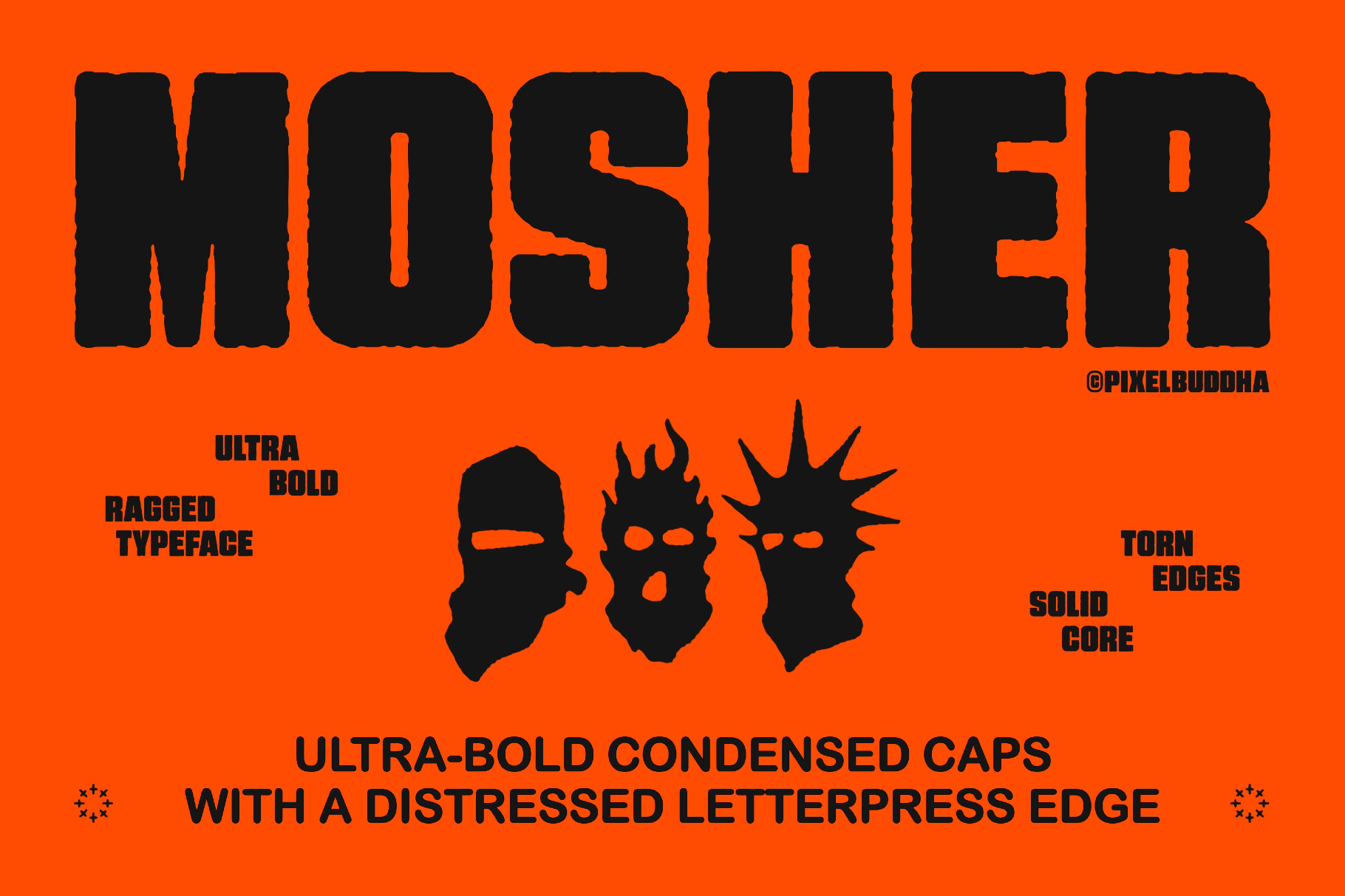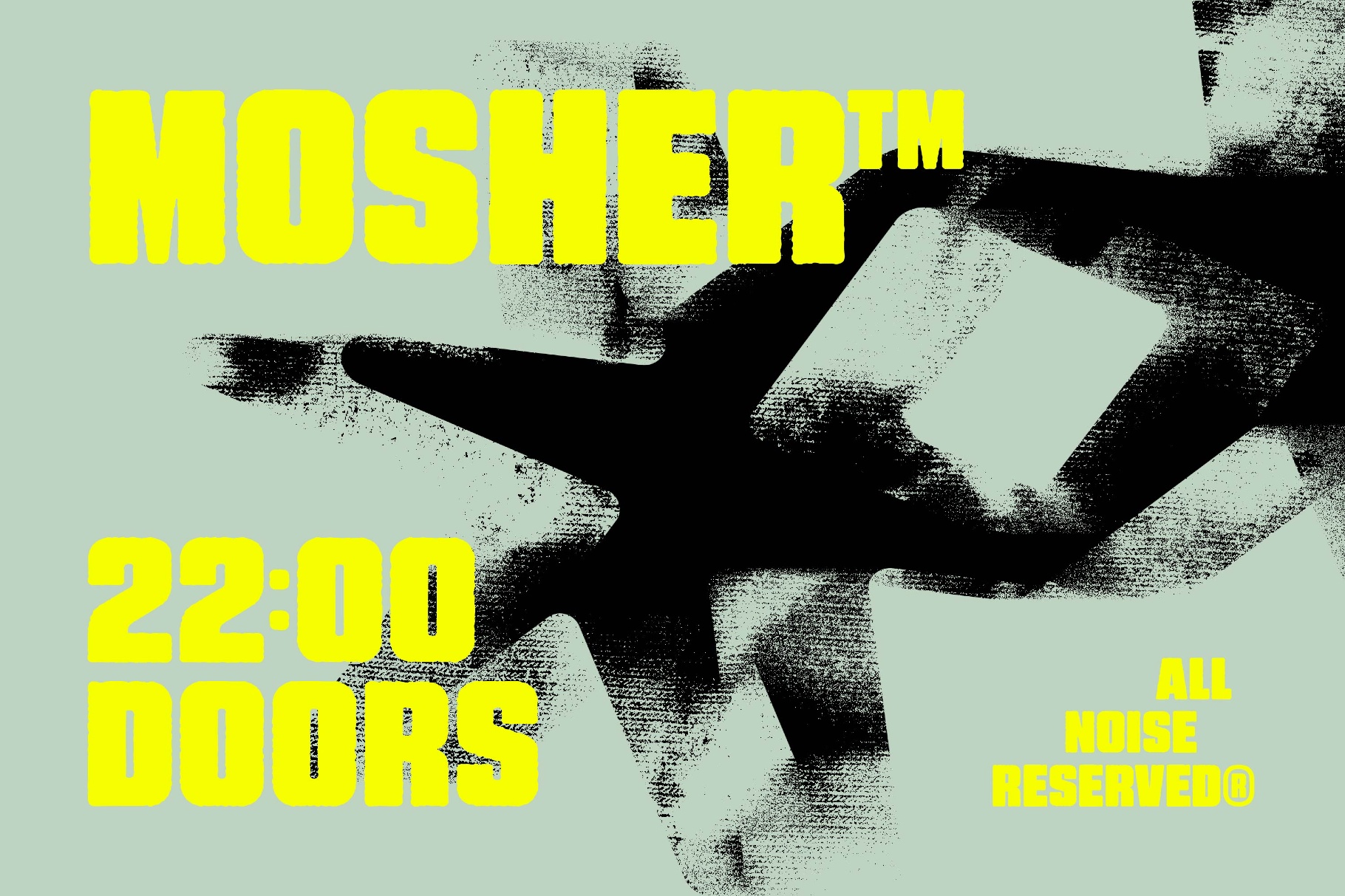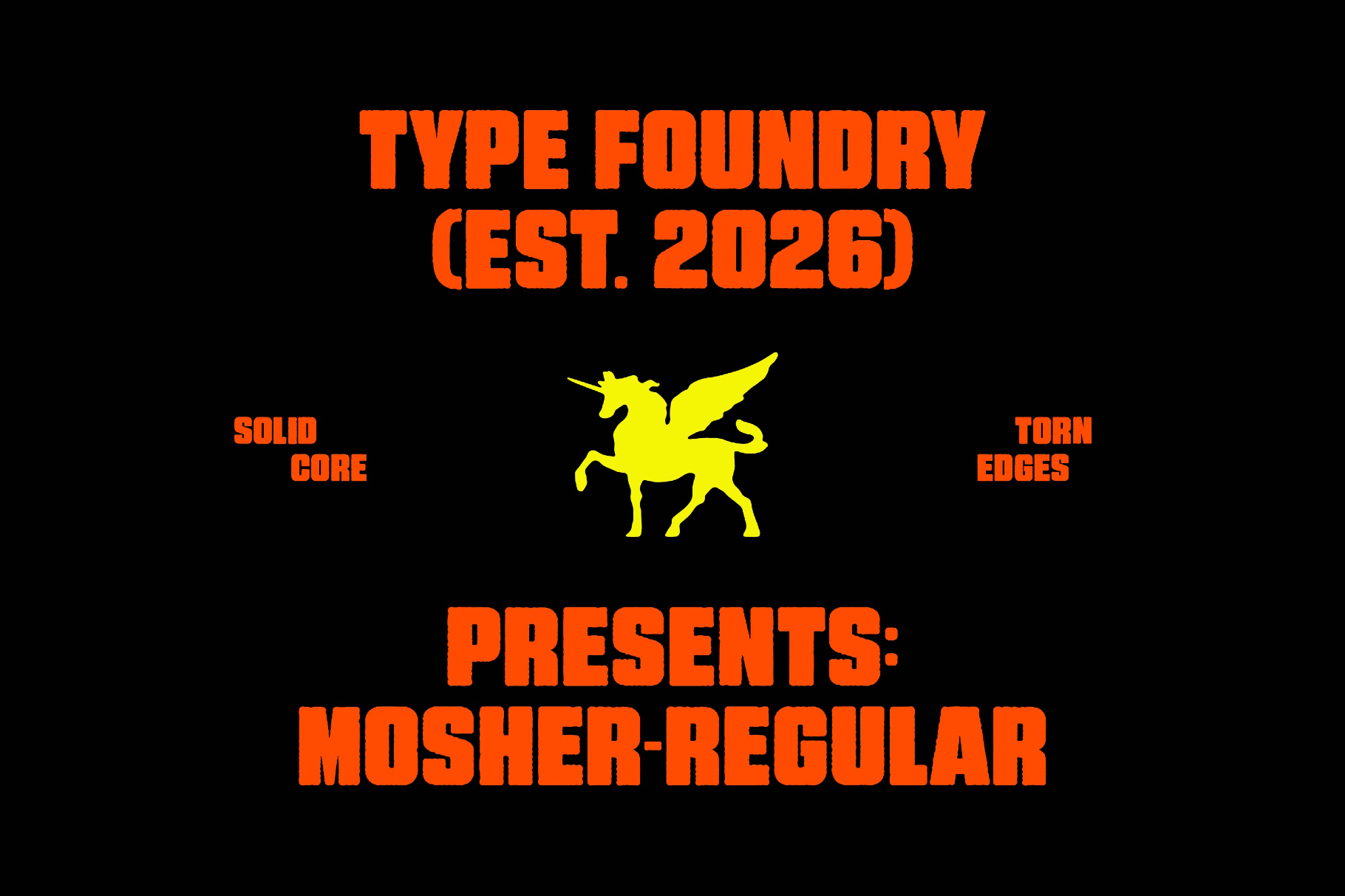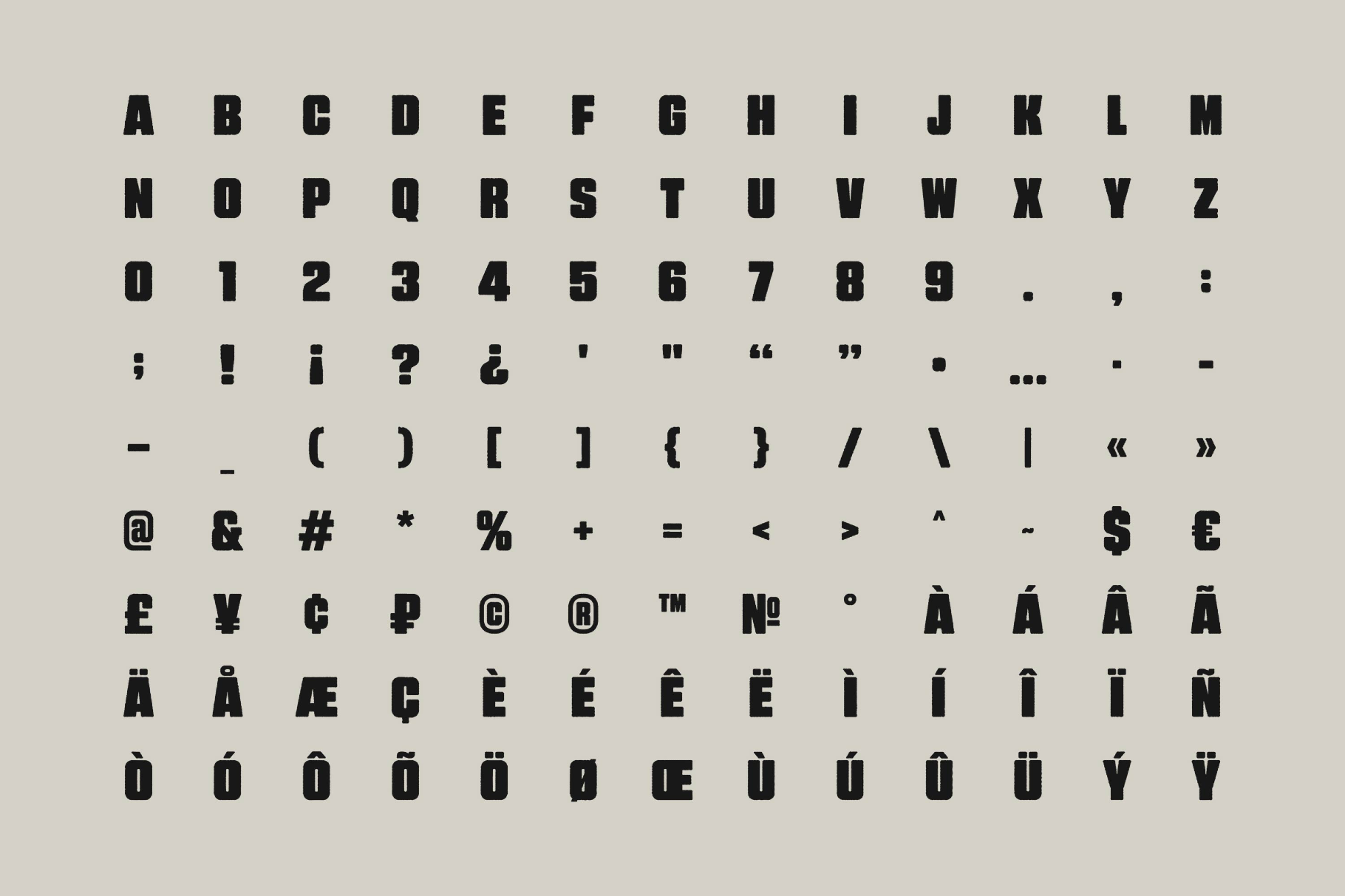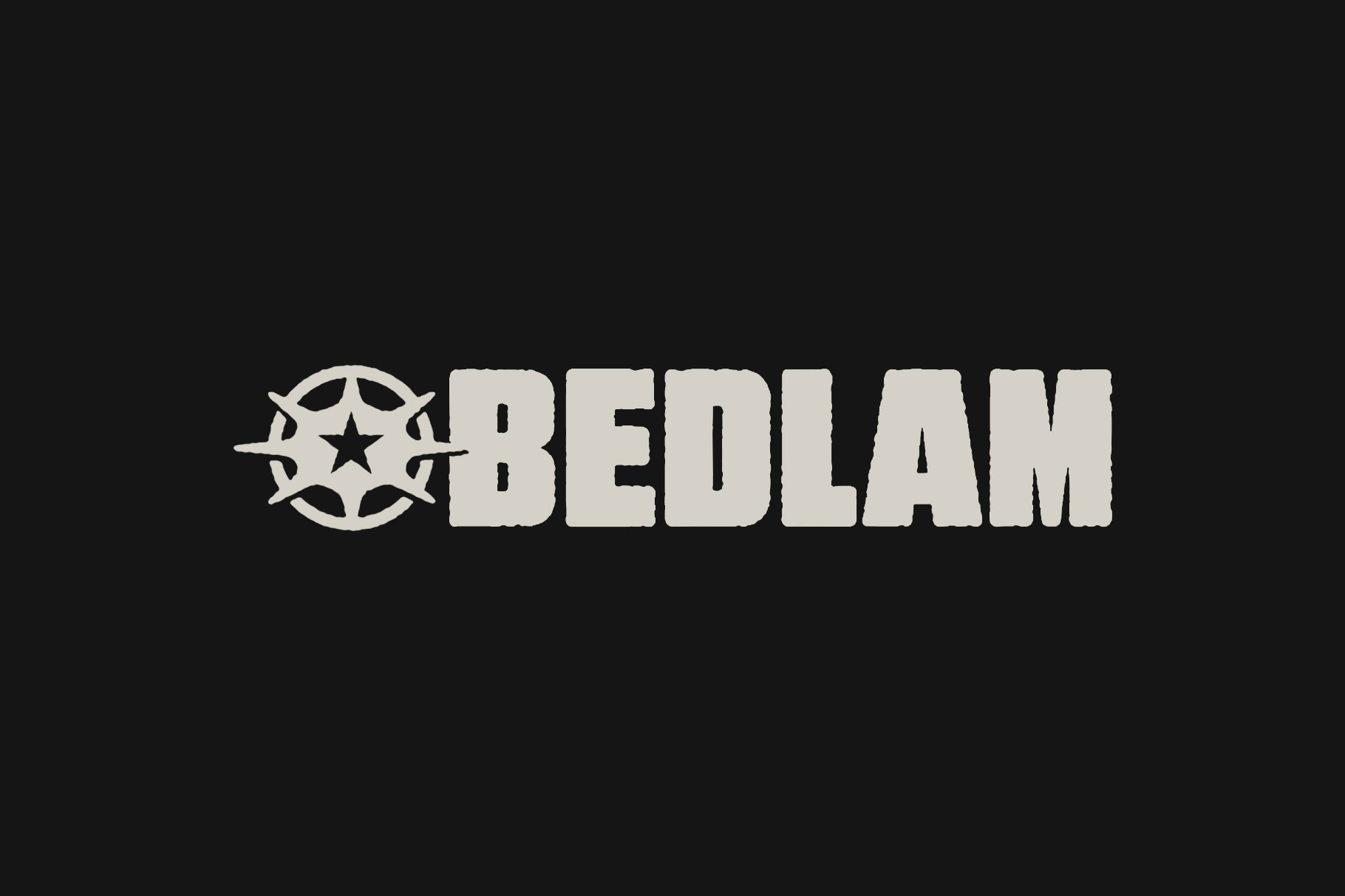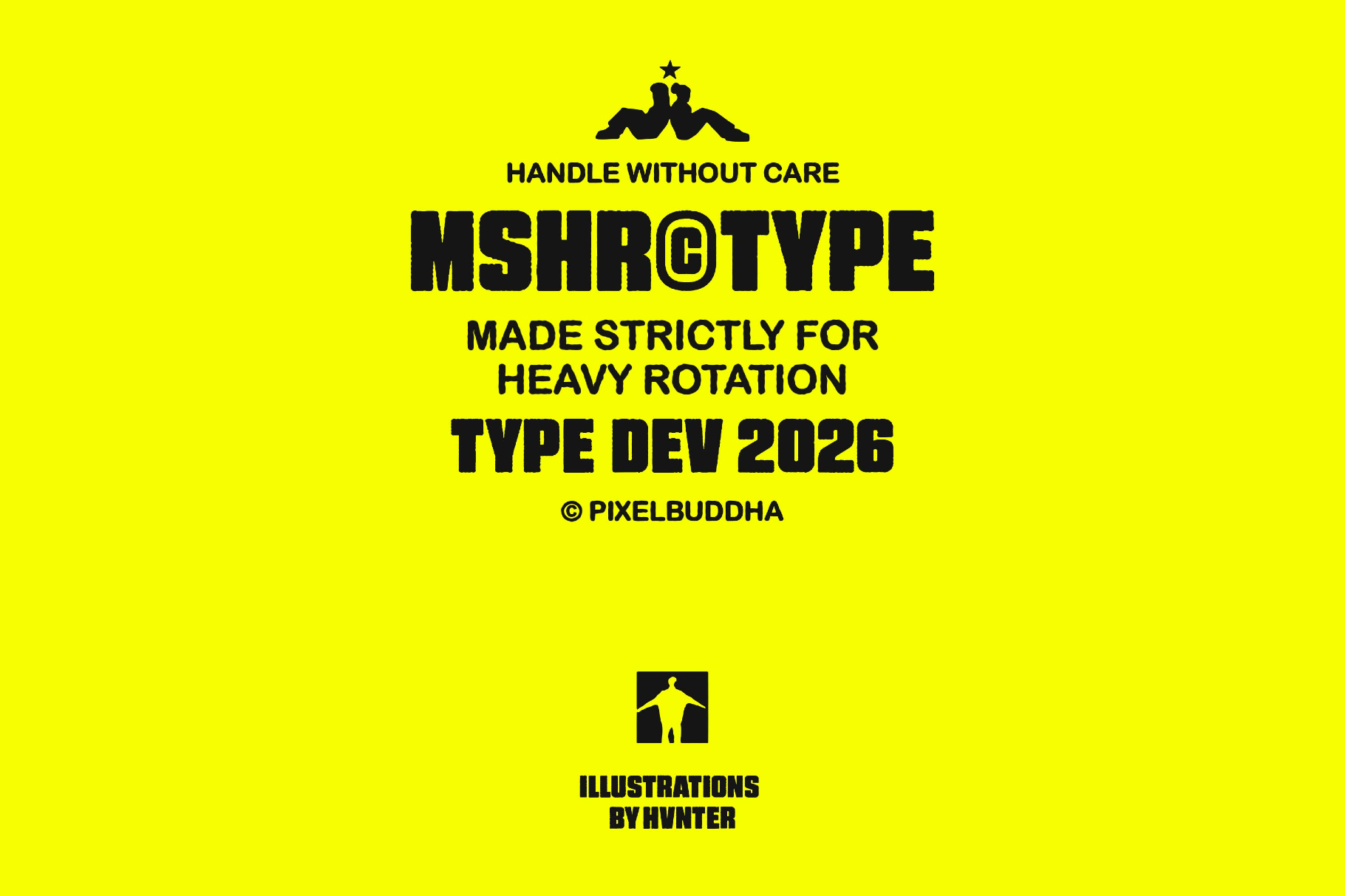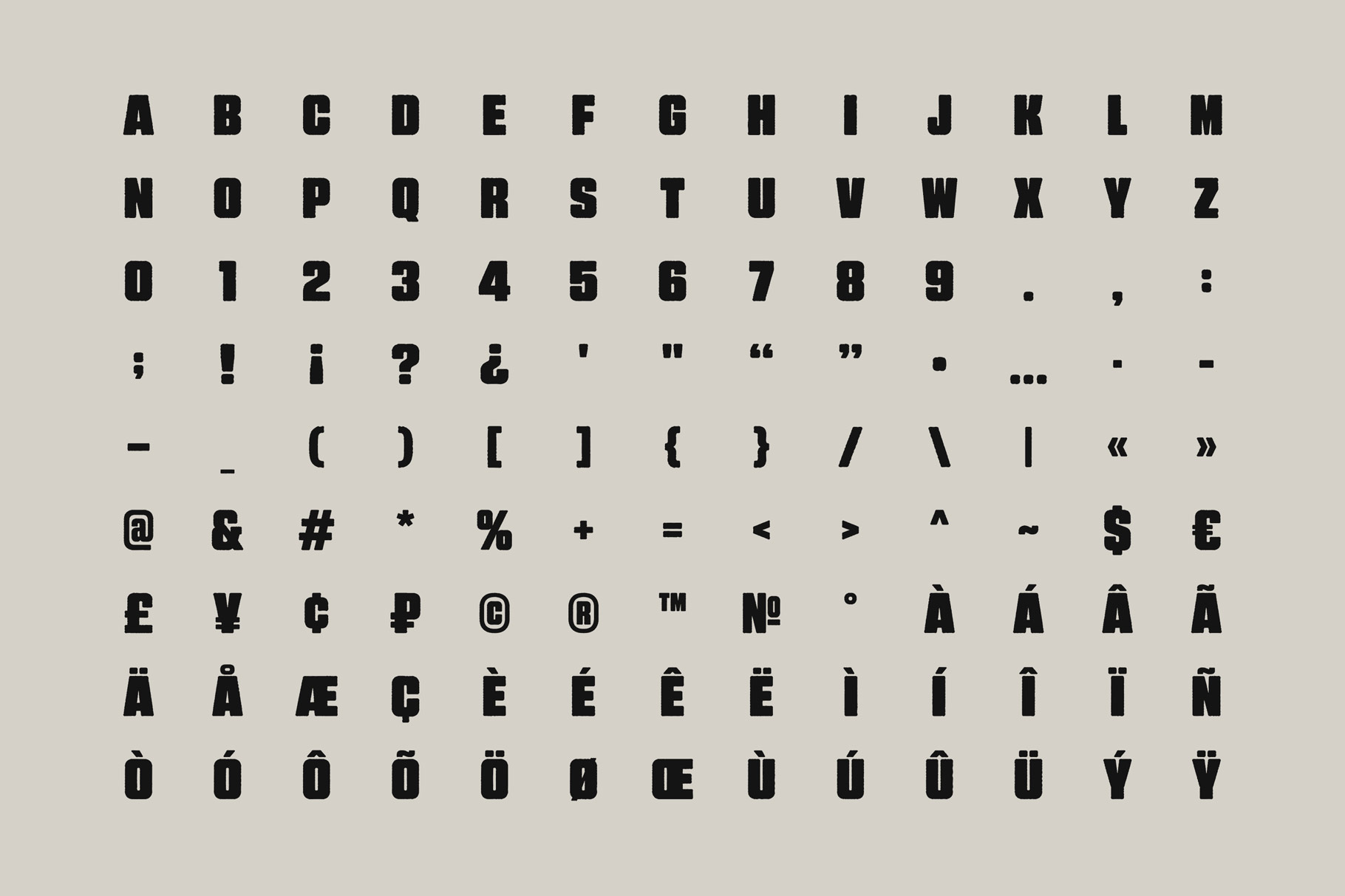
Mosher - Distressed Display Font
Ask anyone in the UK: a mosher is the alternative-scene kid who lives in the pit, and our brand new distressed display font lives up to it. It runs on heavyweight squared caps that come pre-damaged, every edge chewed ragged like a poster that outlasted a week on a lamppost. The grit isn't printed on top: we've cut into every outline, and no two letters wear it the same way.
Mosher grows out of DIY punk flyers, bootleg merch, and club posters photocopied one generation too many. Yes, a grunge cliché. Crust-punk to the core. Straight off a battle-jacket. So you set it huge on gig posters, album covers, zine mastheads, streetwear graphics, and skate-brand logos.
• uppercase characters A–Z;
• numerals, punctuation, currency, and reference symbols;
• extended Latin: French, Spanish, Portuguese, Italian, German, Dutch, and the Nordic set (Ø, Æ, Å, Œ, Ñ, Ç);